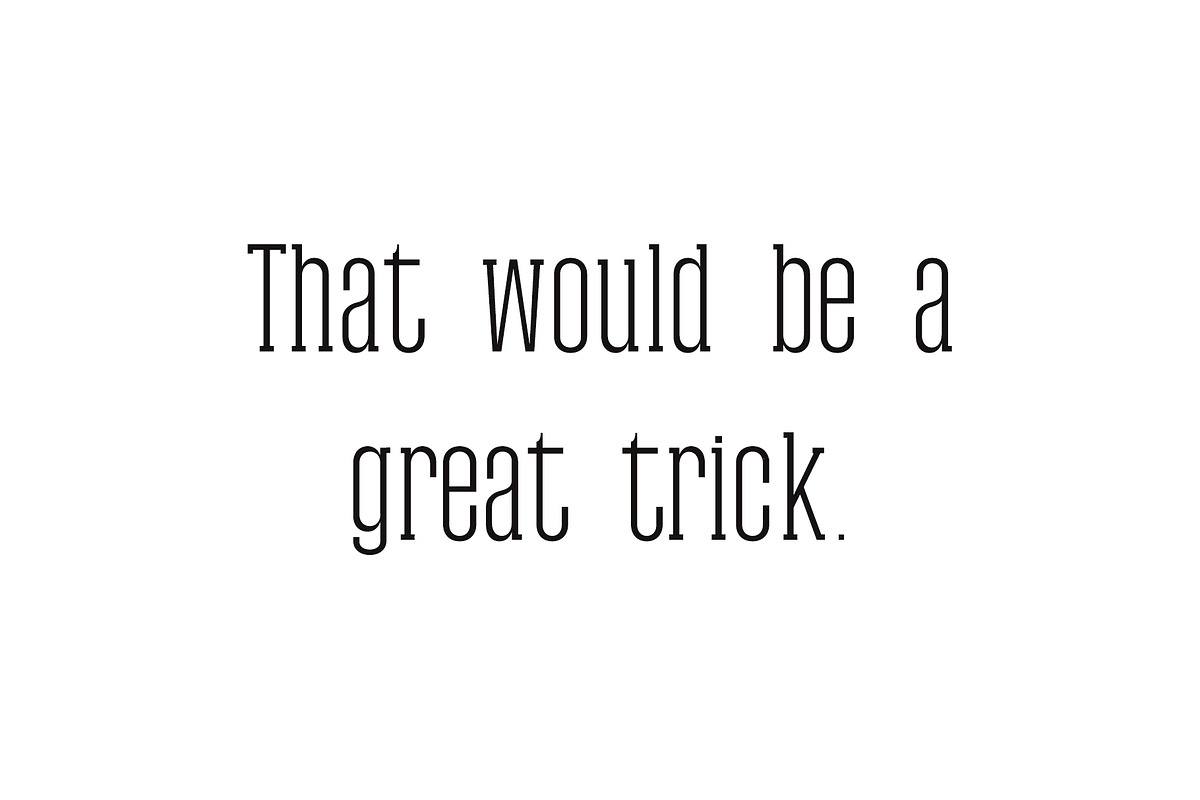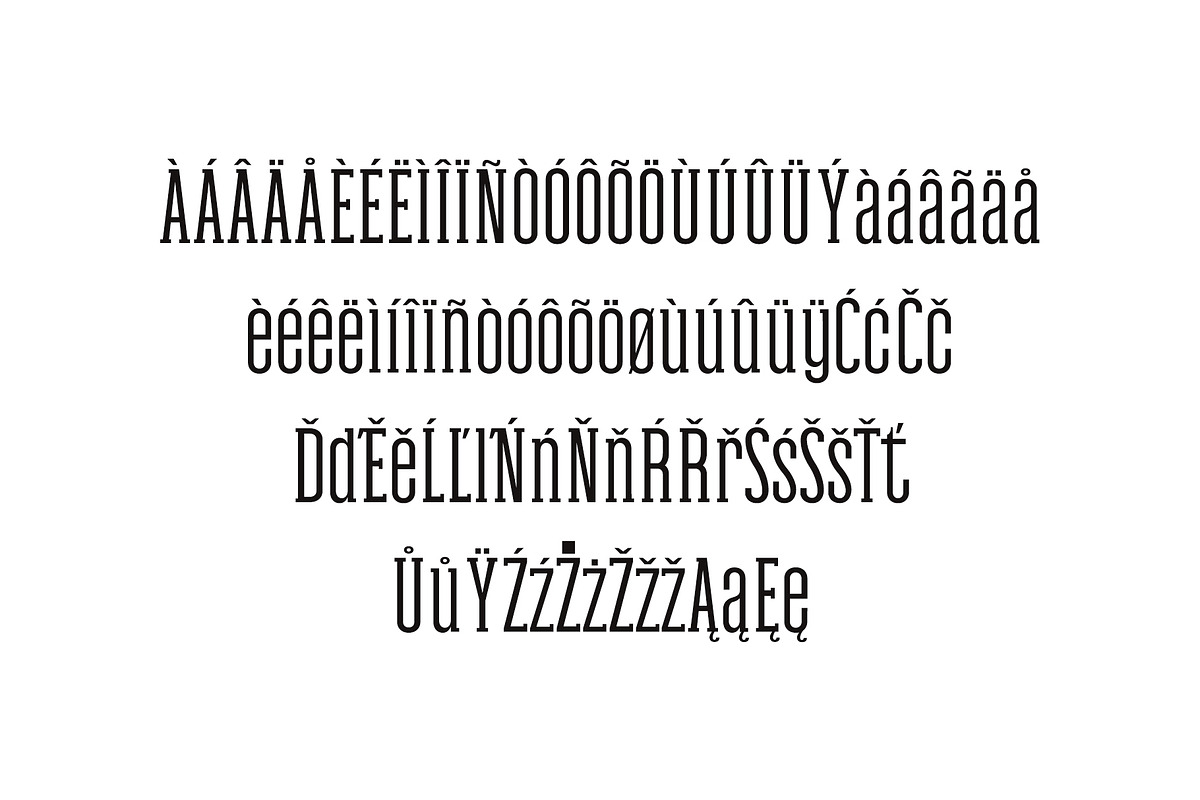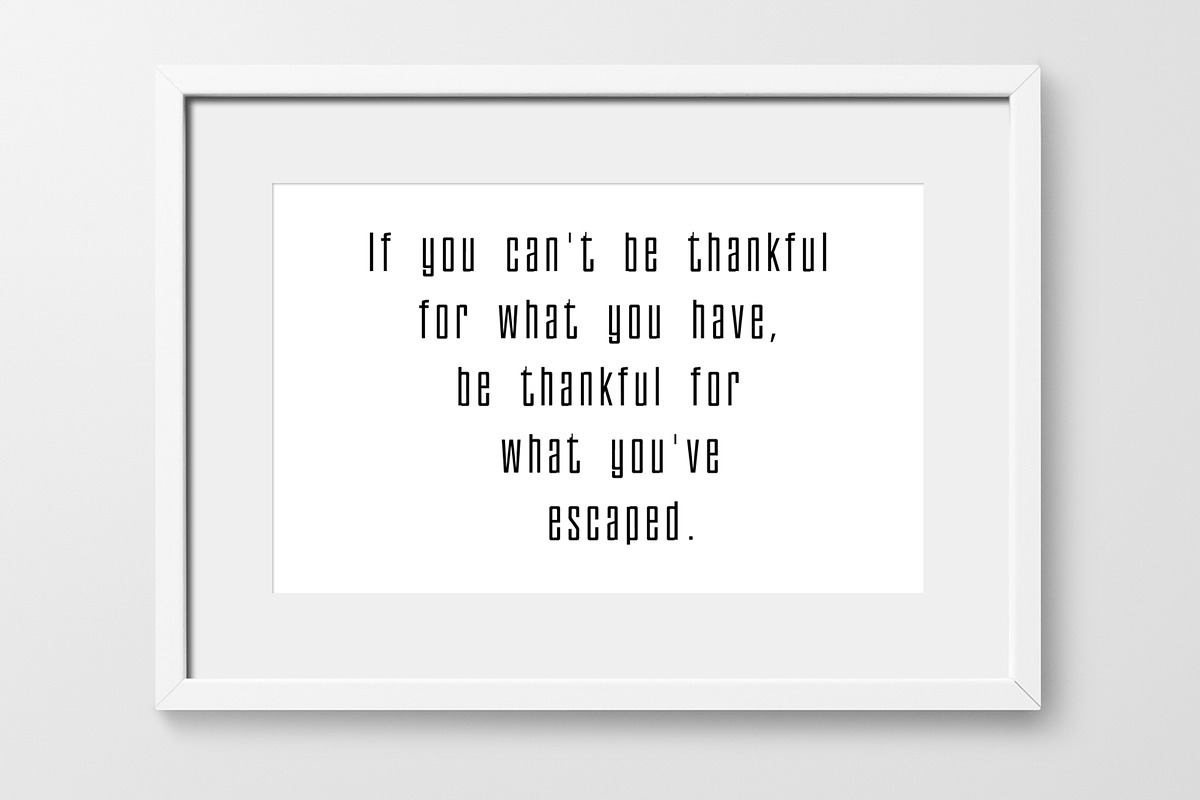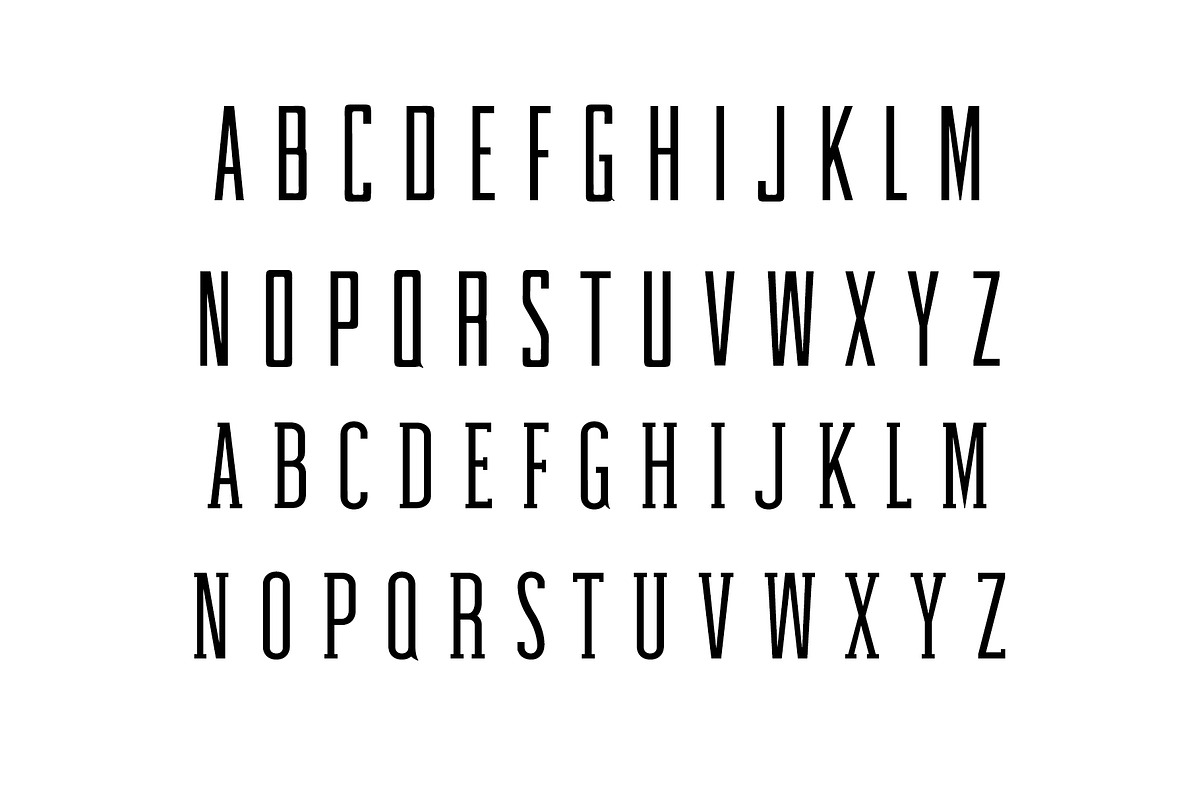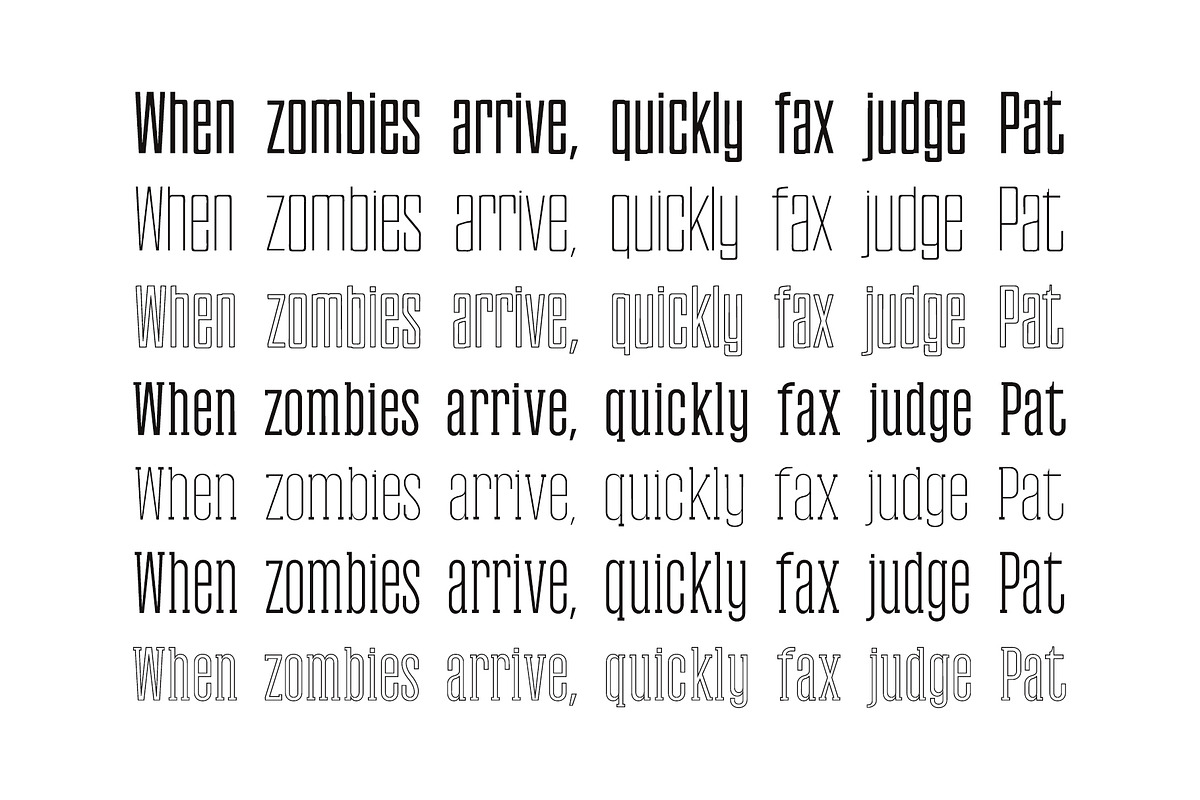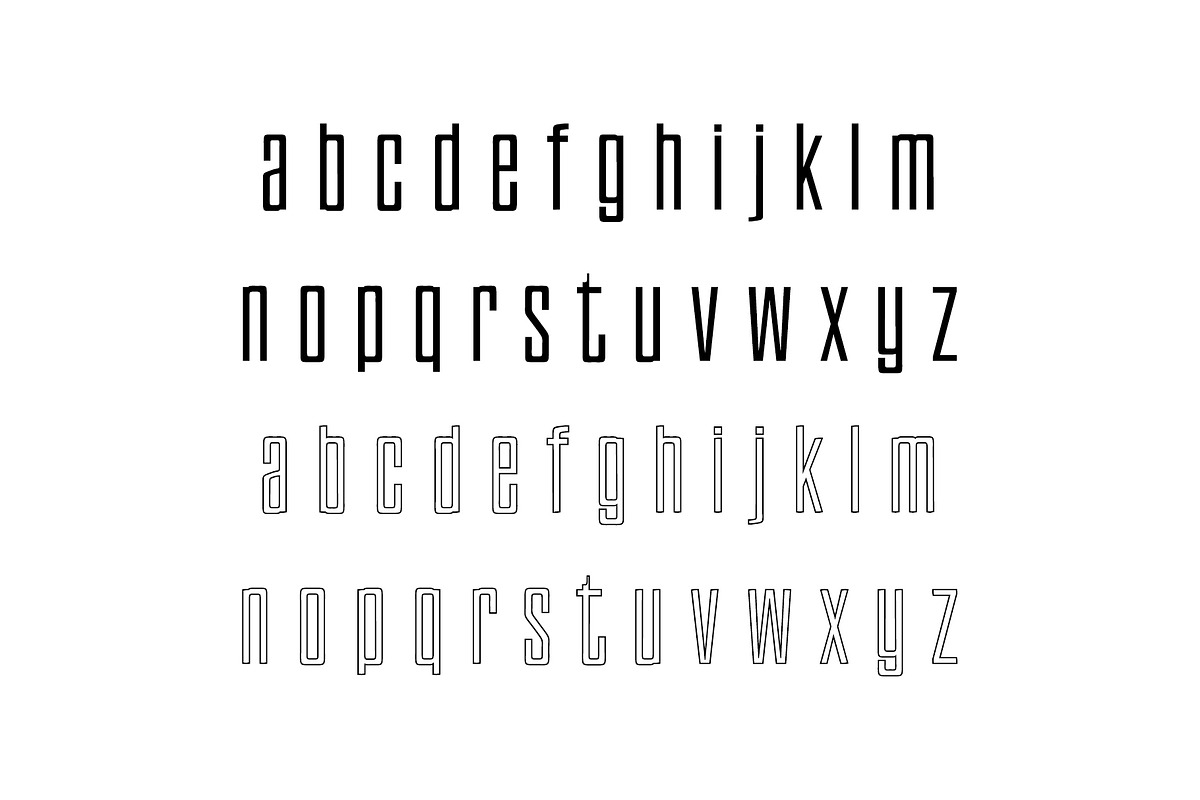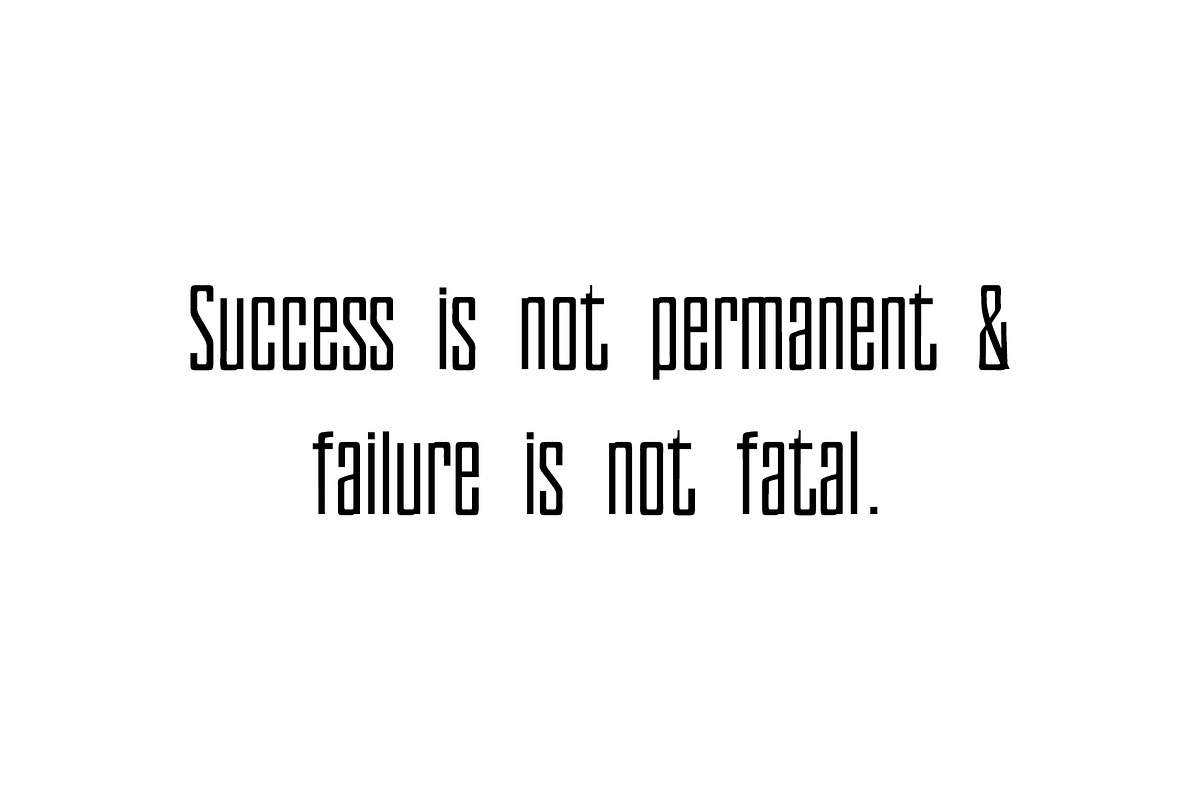
Gayora Slab Serif | Duo Font
Gayora Duo is a clean, vibrant minimal (sans and slab) serif font. This font has a strong personality, that makes it perfect for use in the headline, wedding invitation, greeting cards, T-shirt, branding & logo projects, merchandise, social media posts, product packaging, or any design that you create.
Font Weight: Regular, Thin and Outline
Gayora Font Features:
Non English Characters ( Latin Supplement + Latin Extended A )
Font Weight: Regular, Thin, Light and Outline
Non English Characters ( Latin Supplement + Latin Extended A )
- Font Weight: Regular, Thin and Outline
- Gayora Light
- Gayora Regular
- Gayora Outline
- Tamra Thin
- Tamra Light
- Tamra Regular
- Tamra Outline